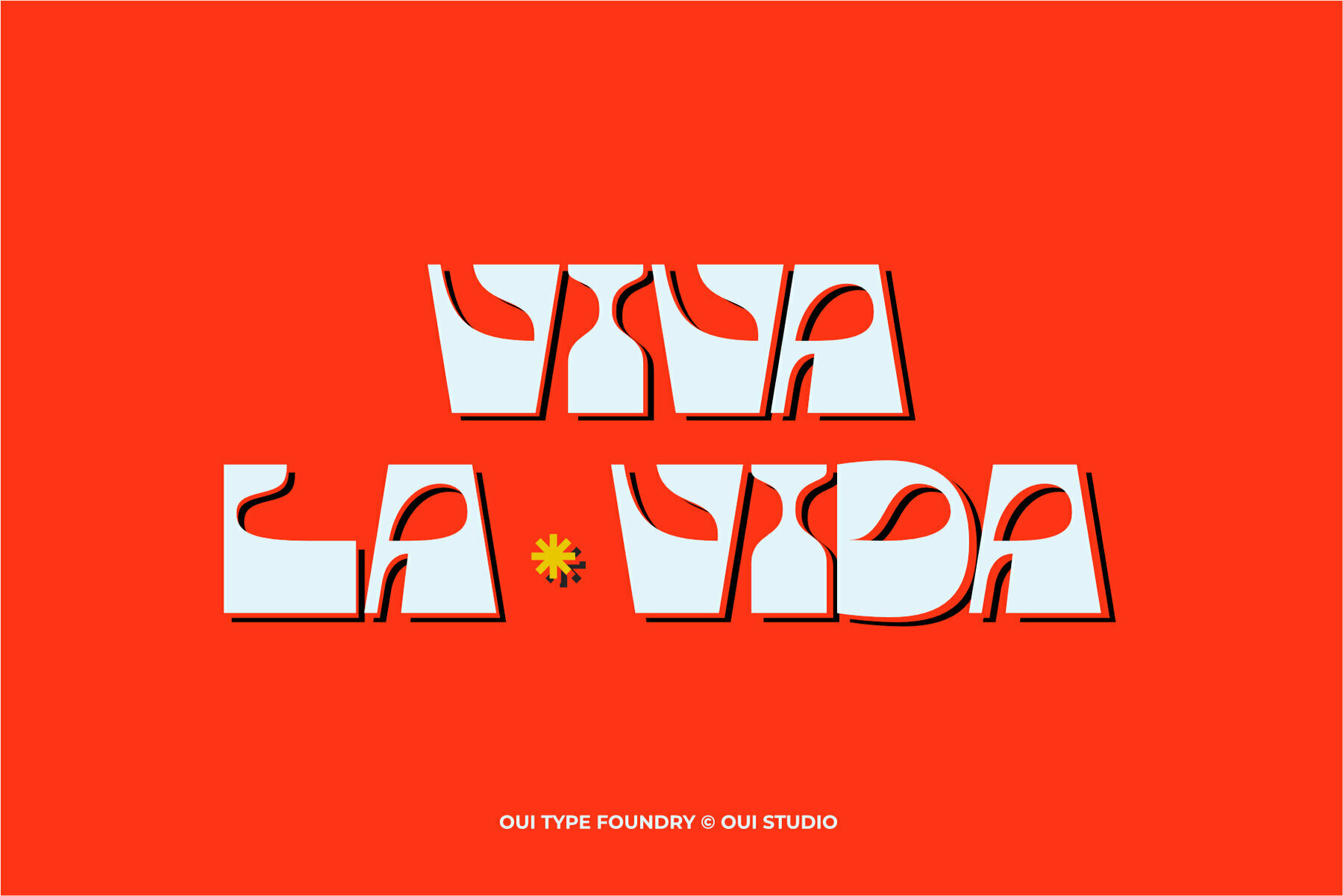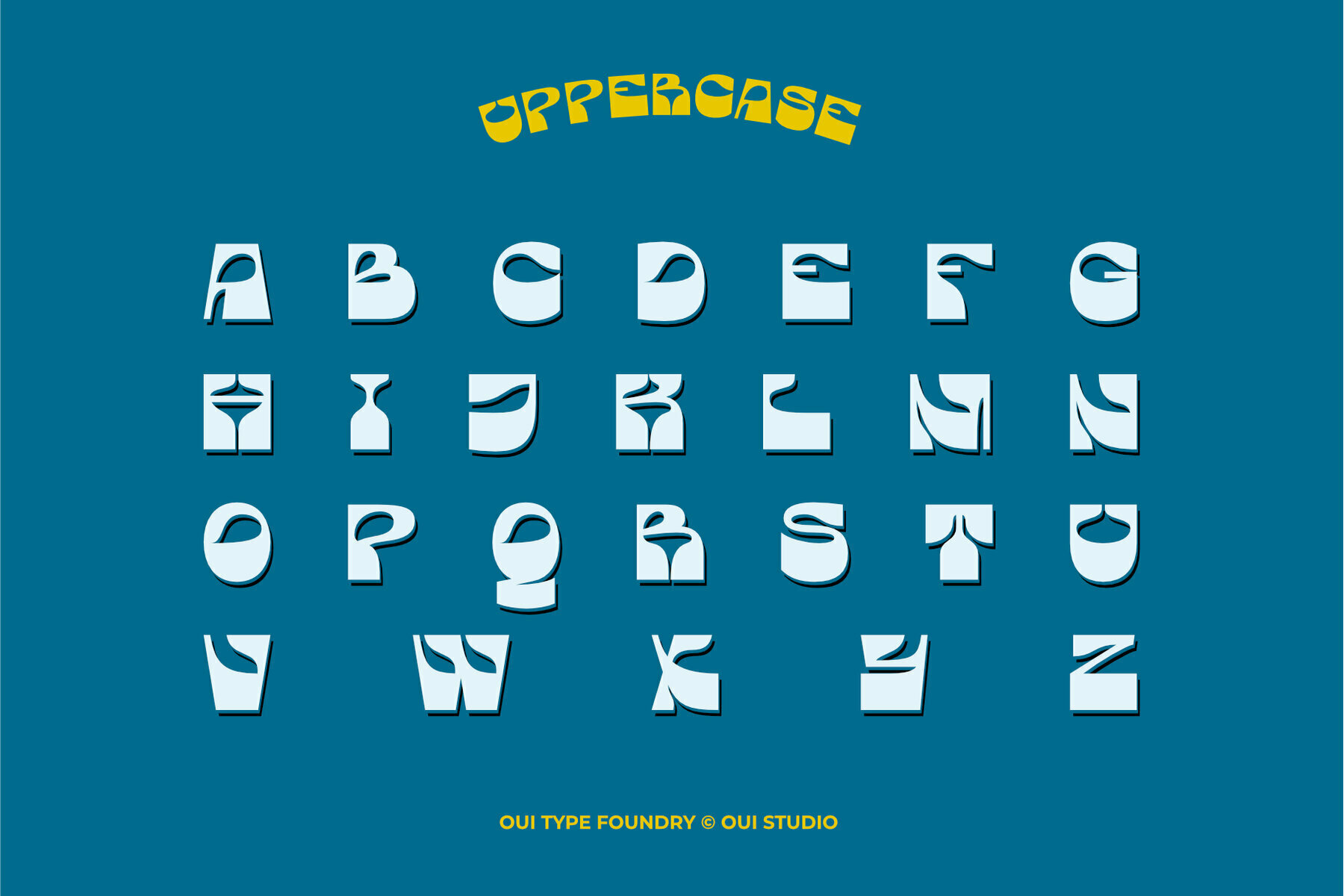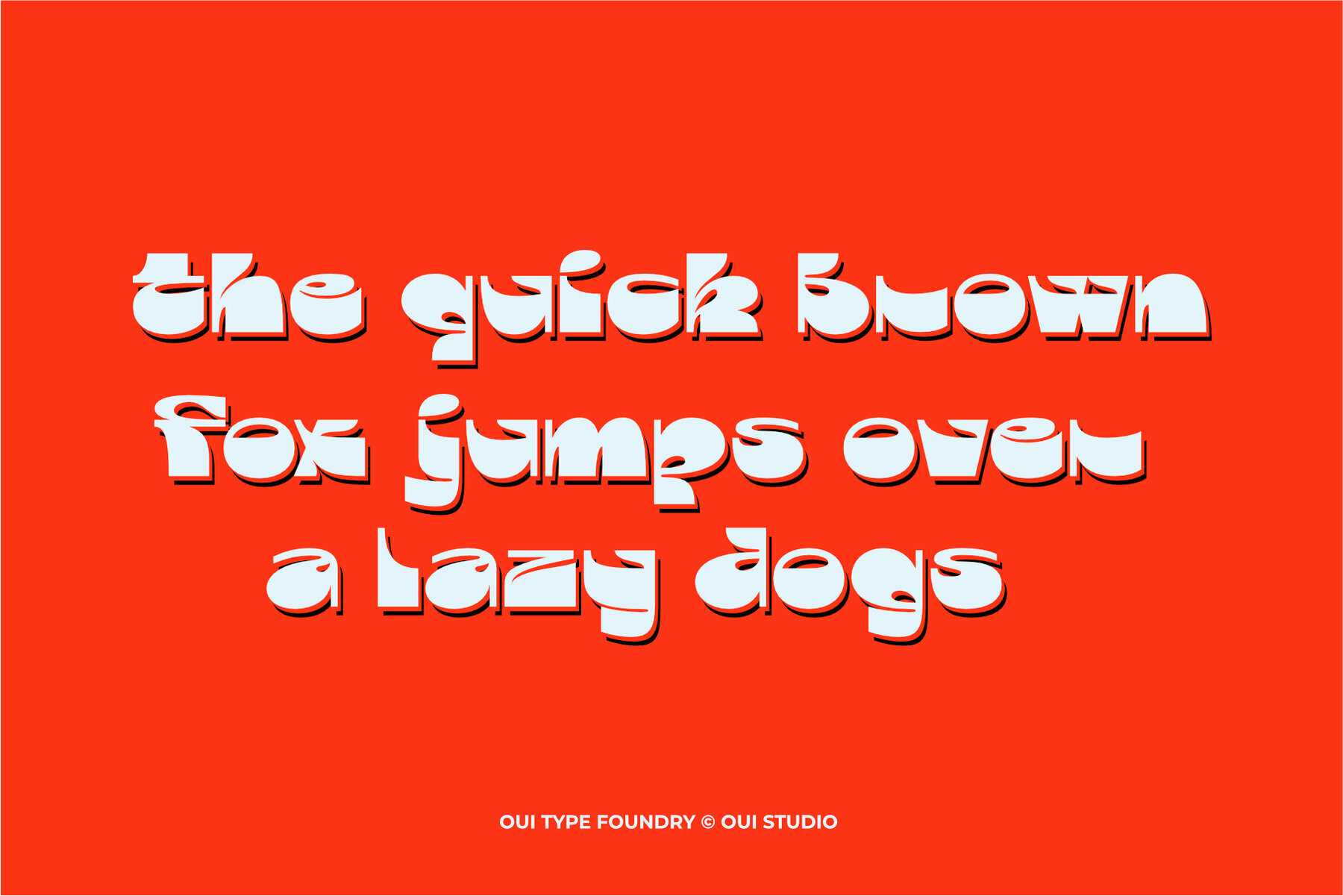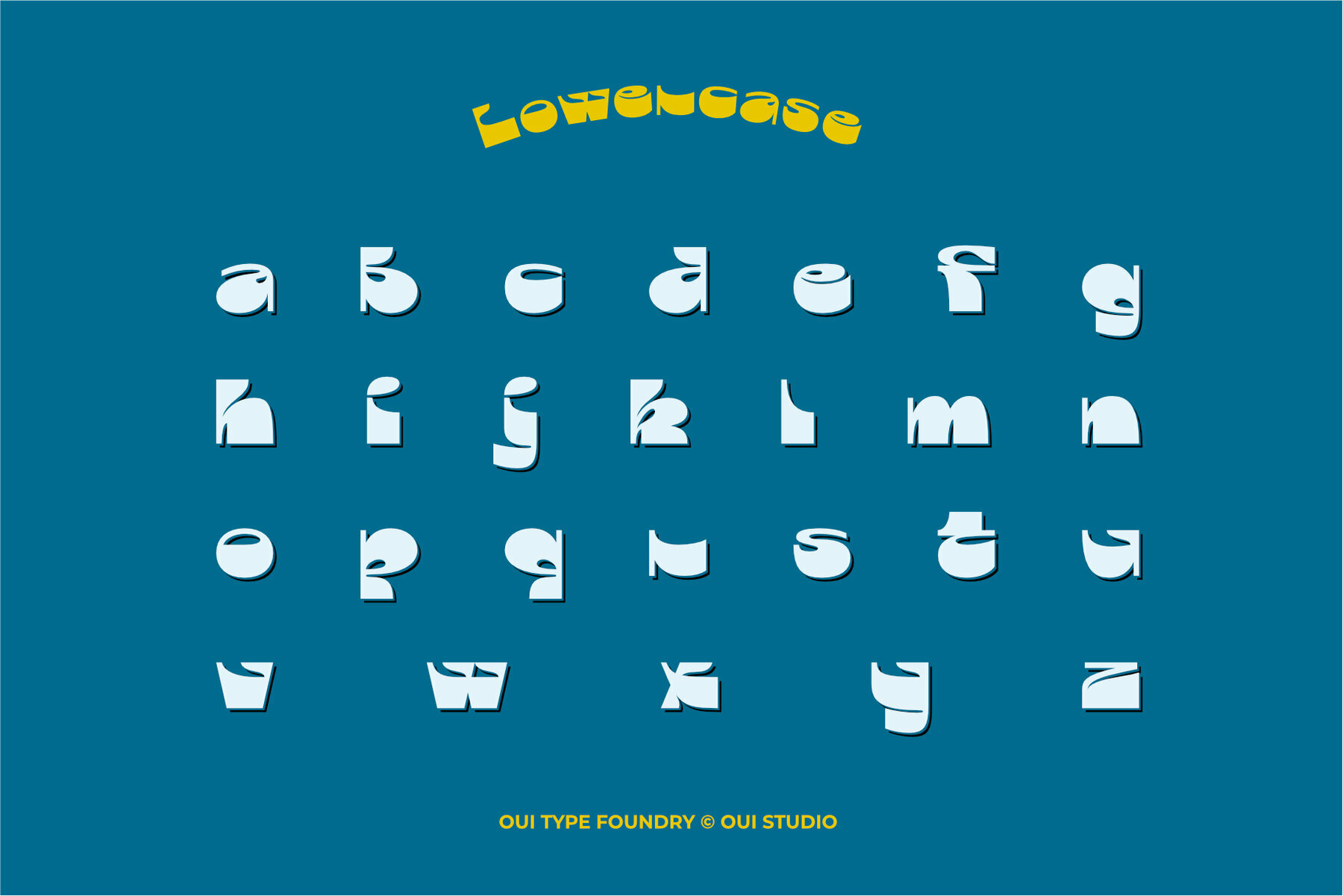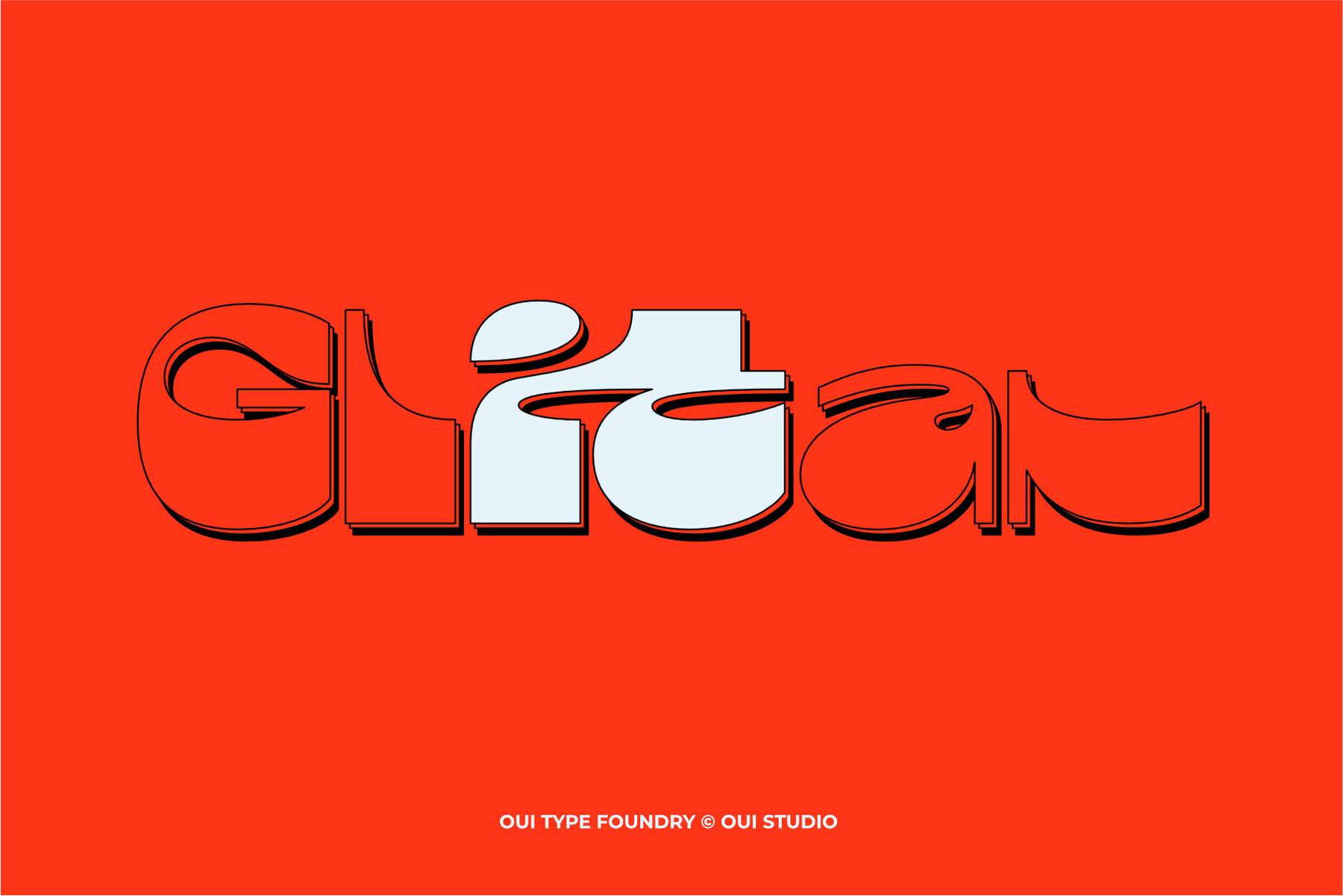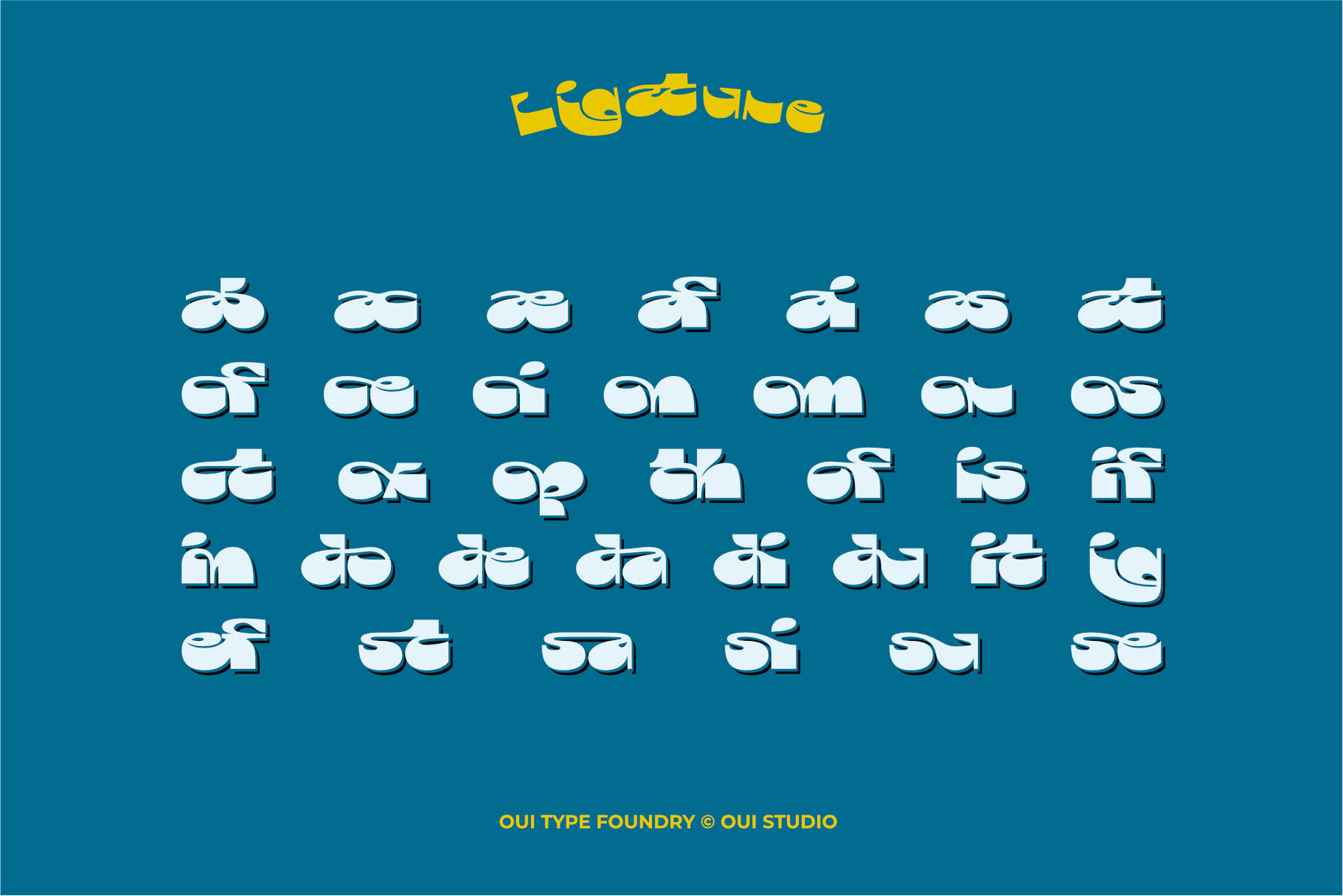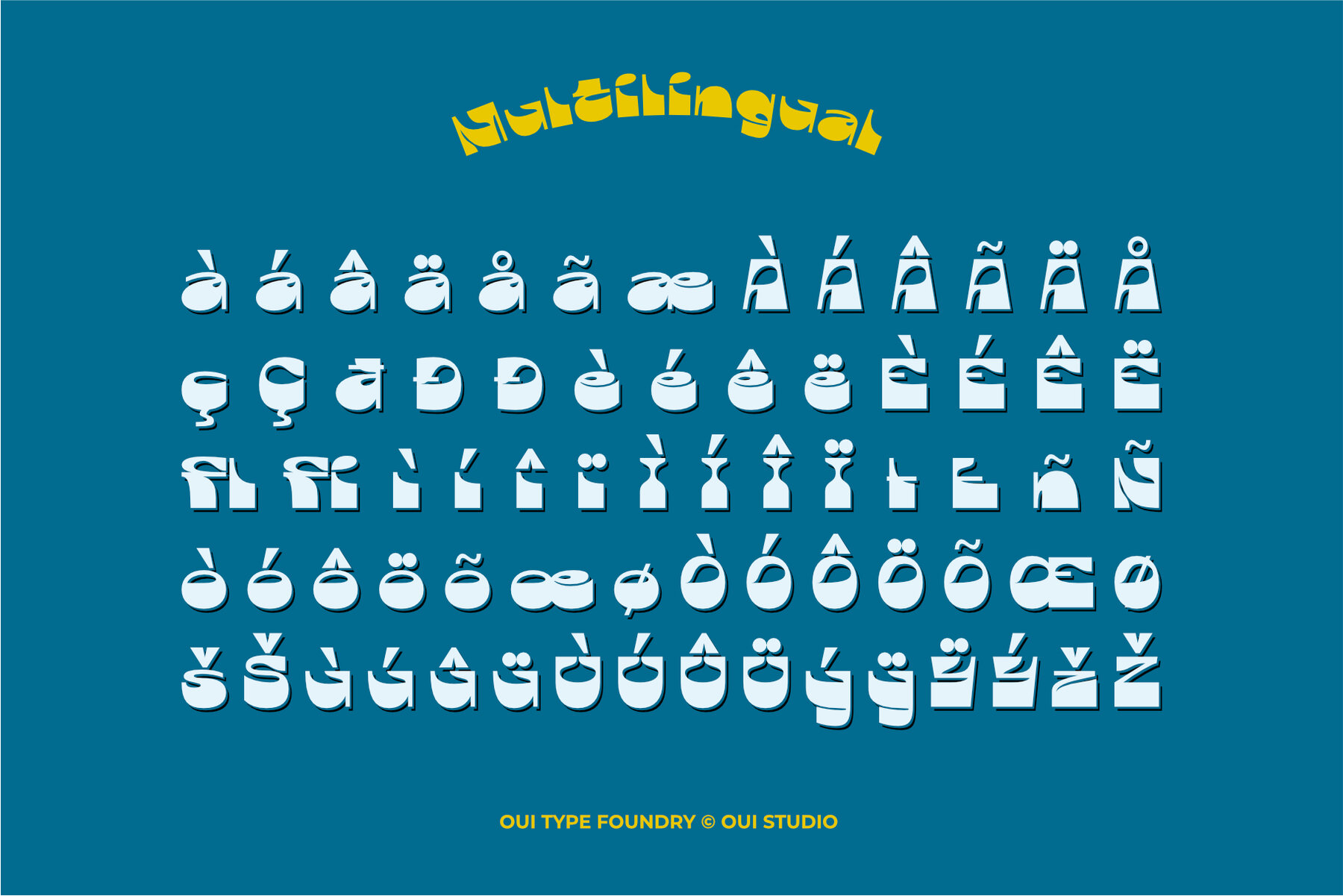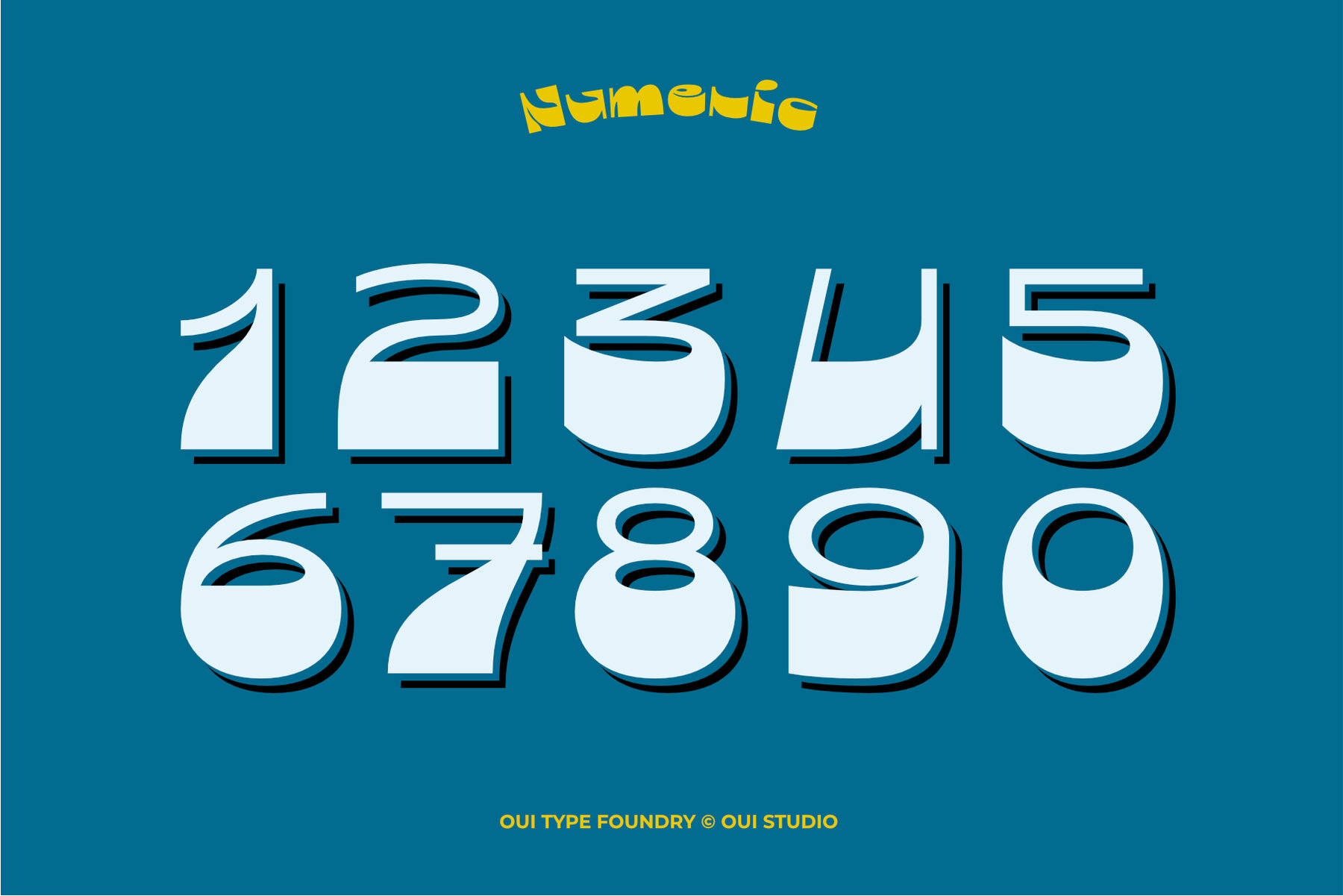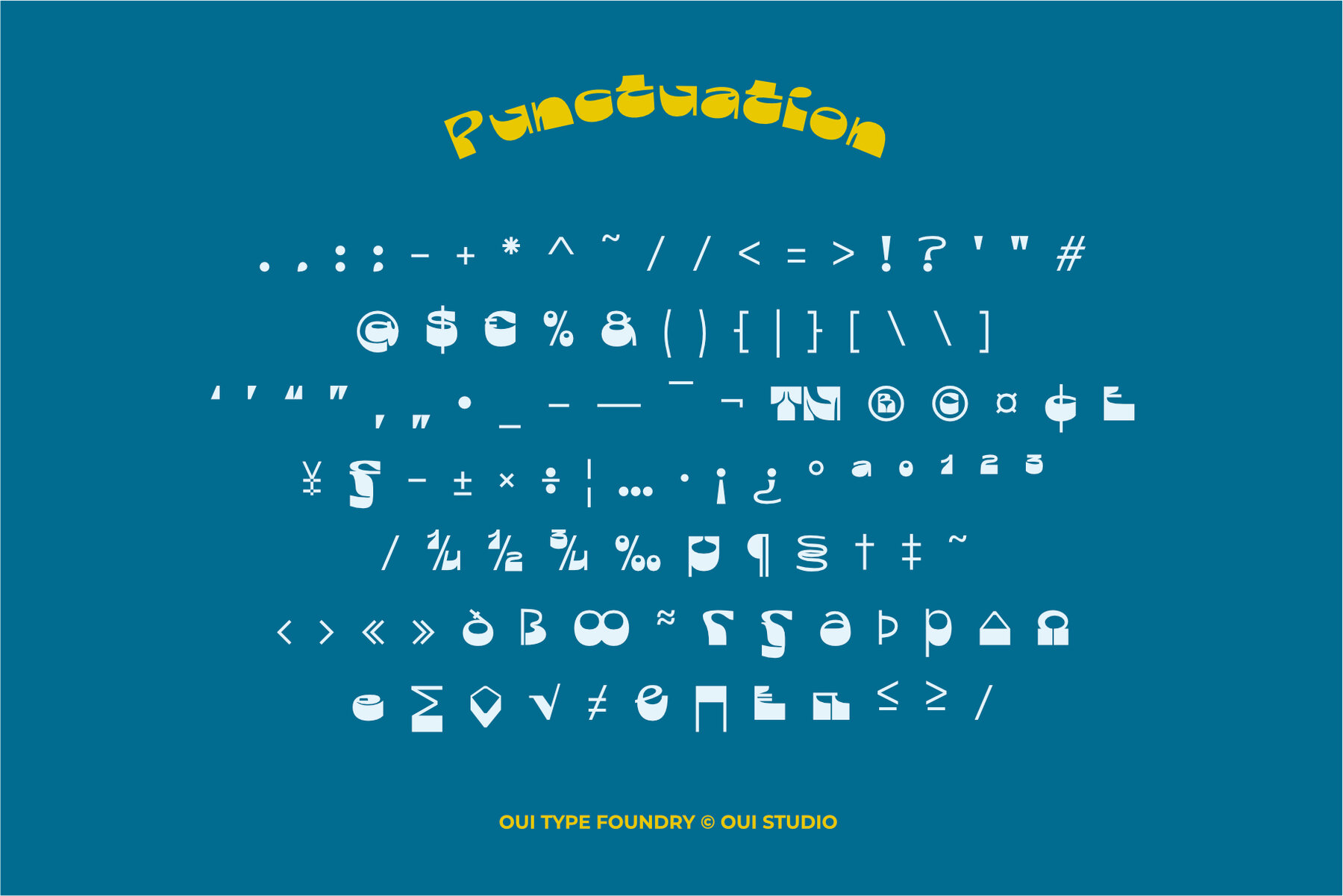
Glitar Font
Glitar Regular
Glitar channels the quintessential charm of 1970s culture, embodying the spirit of an iconic era with its modern retro aesthetic. This font draws inspiration from the vibrant artwork and music scenes of the 70s, delivering a perfect choice for any project seeking a touch of nostalgia. Whether employed in branding, logo design, or even packaging, Glitar offers a captivating blend of vintage style with contemporary appeal. Pair this font with illustrative elements to enhance its visual appeal, ensuring your design resonate with authenticity and sophistication.Glitar: A Nostalgic Nod to 70s Design